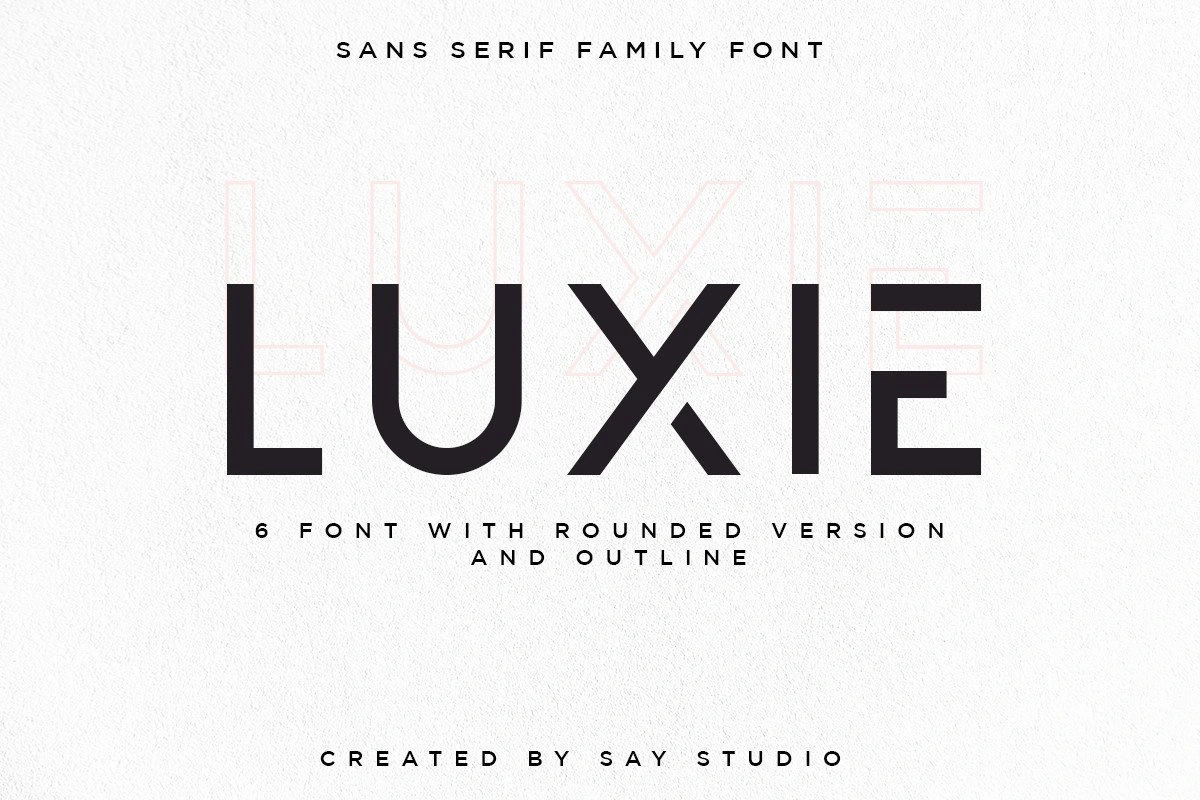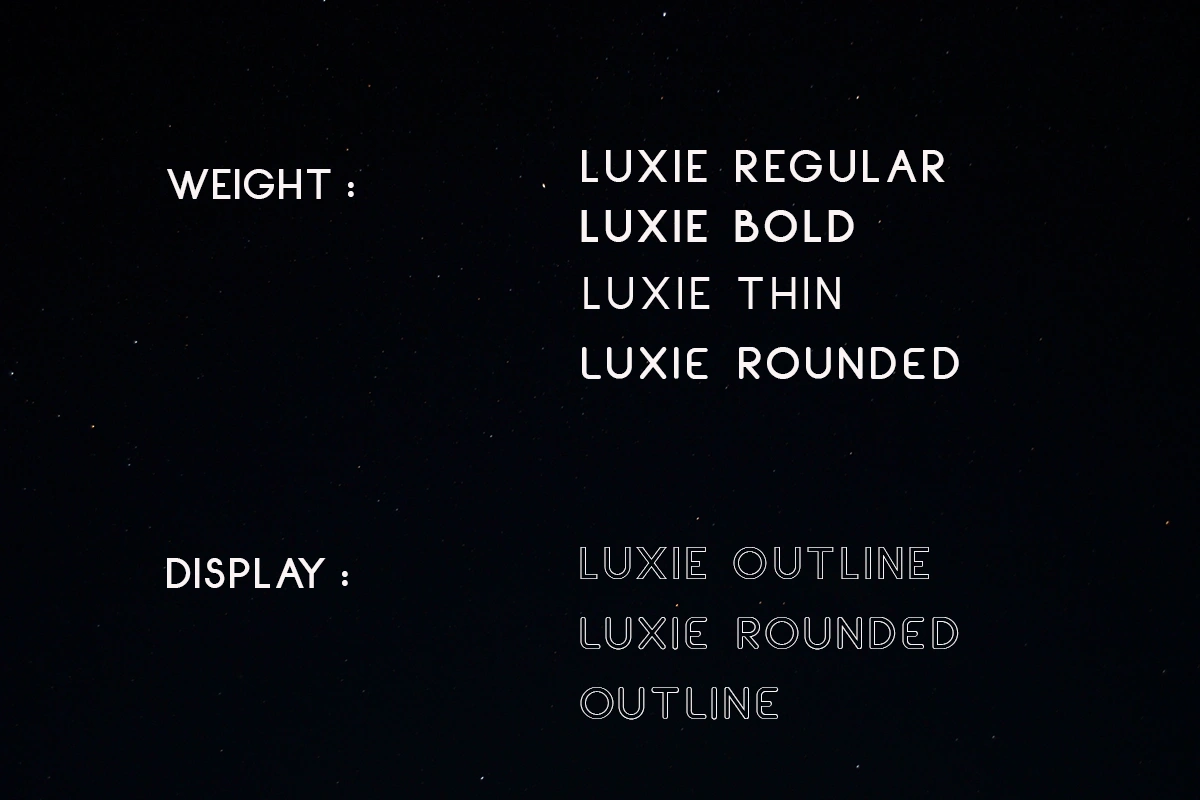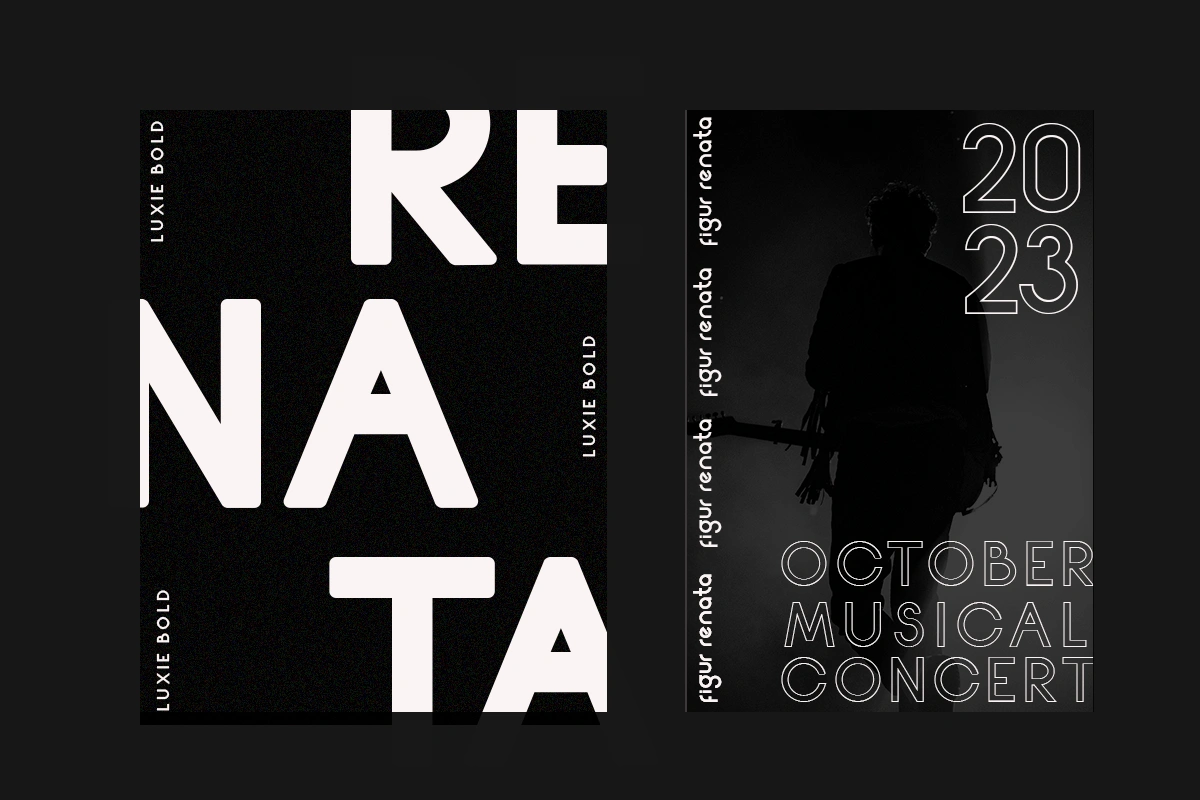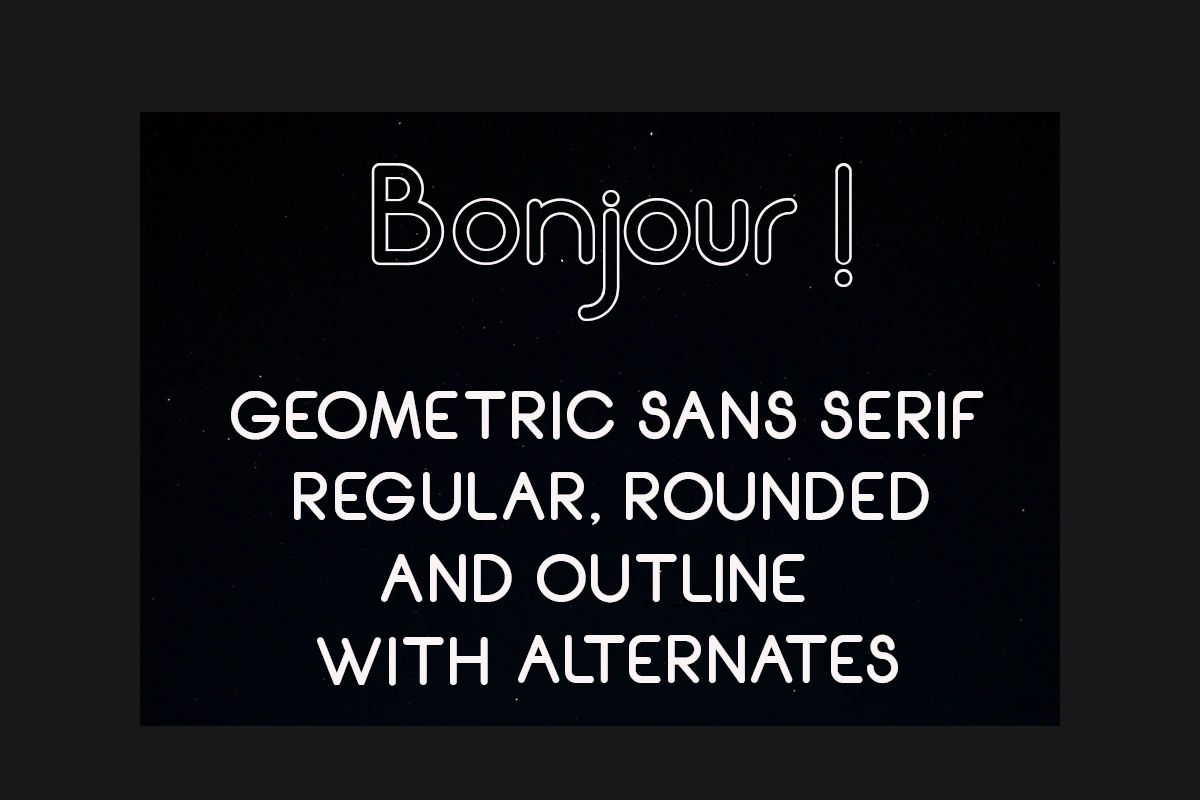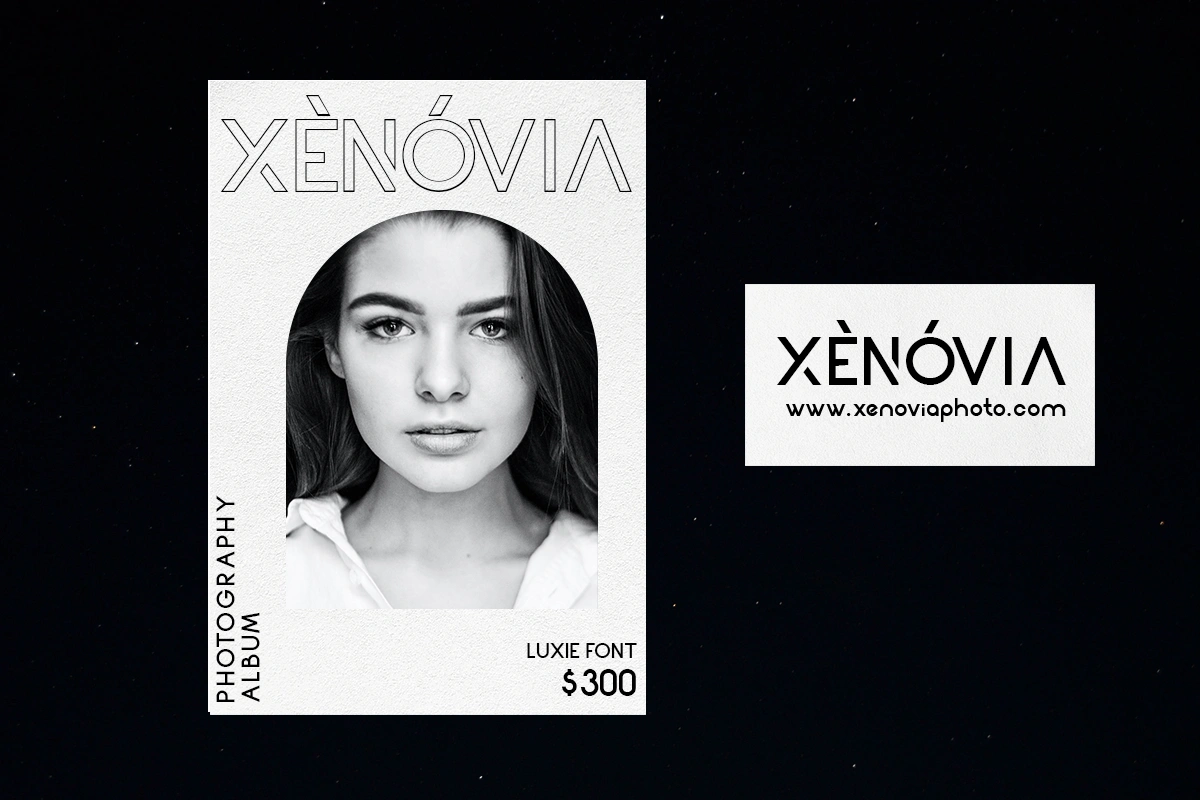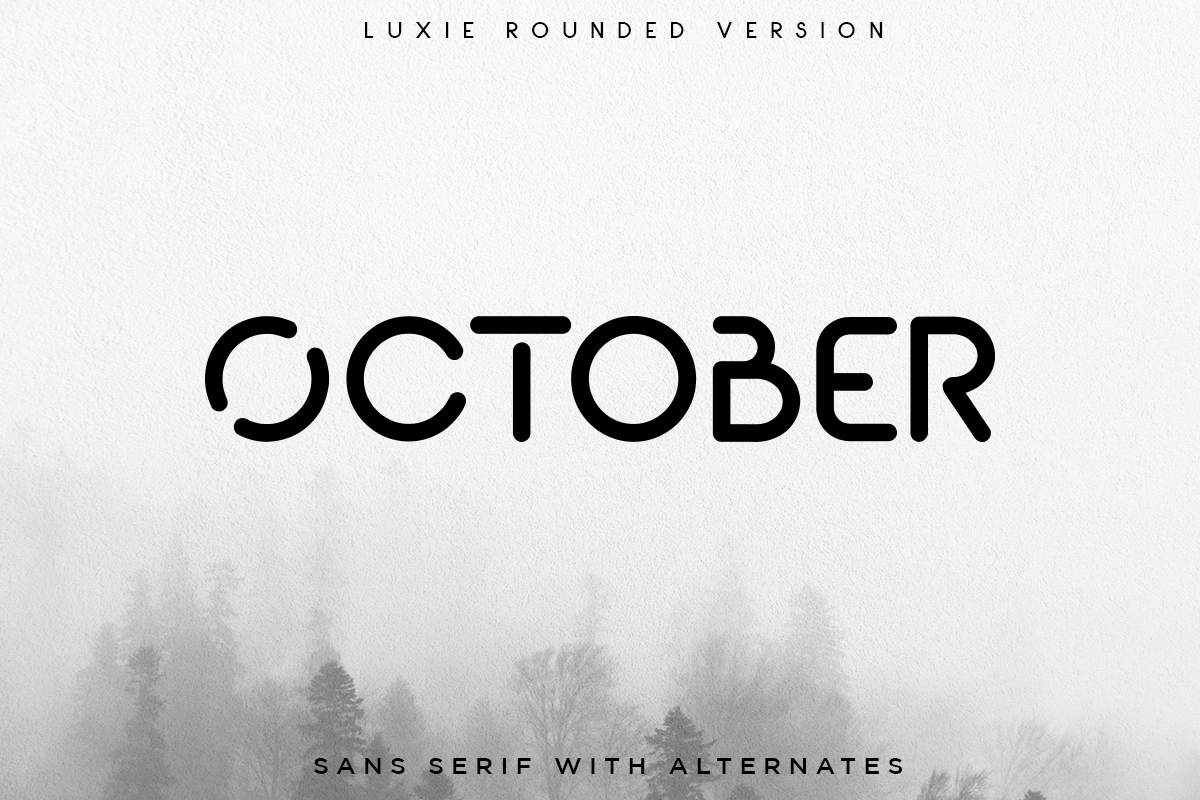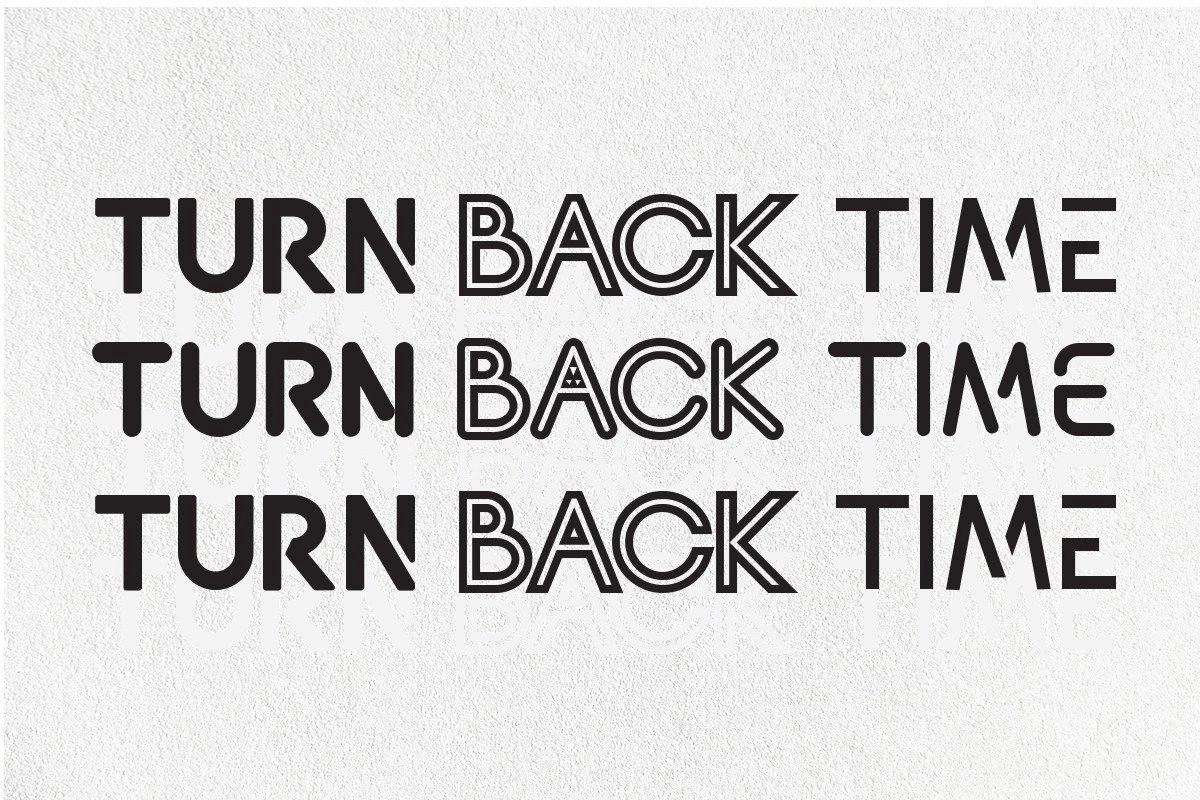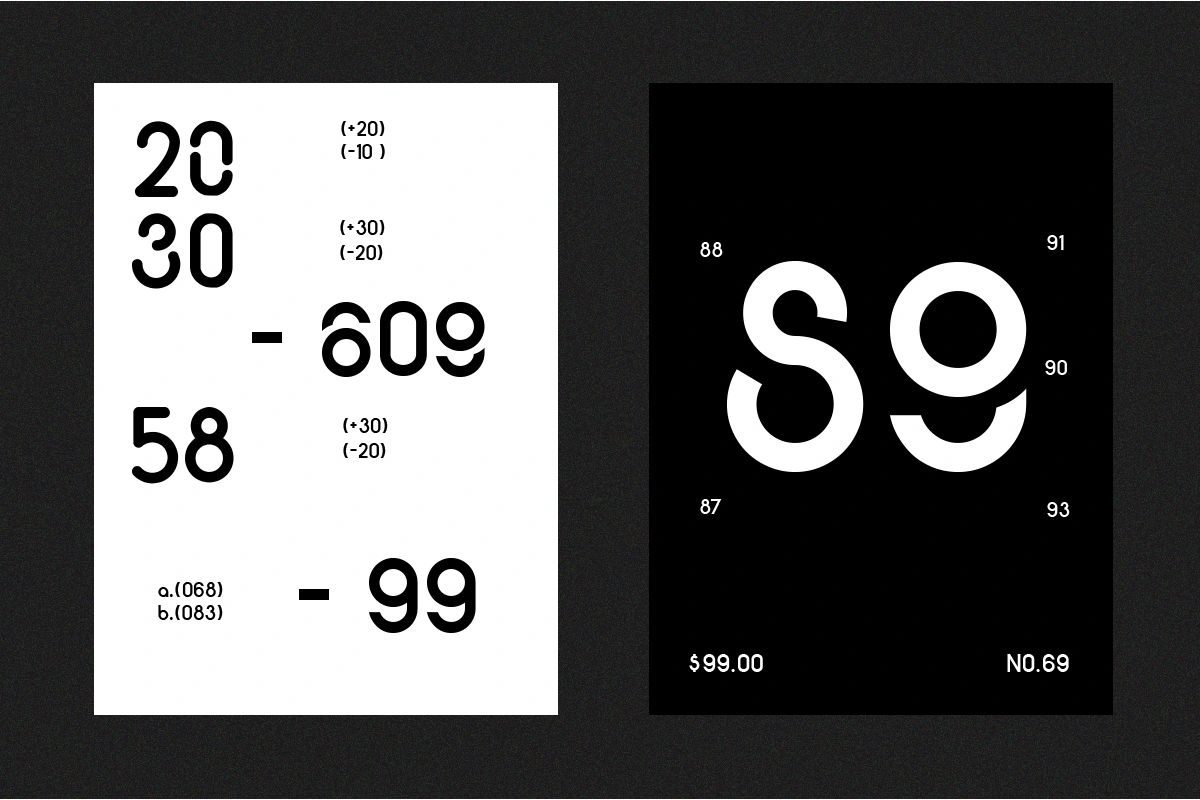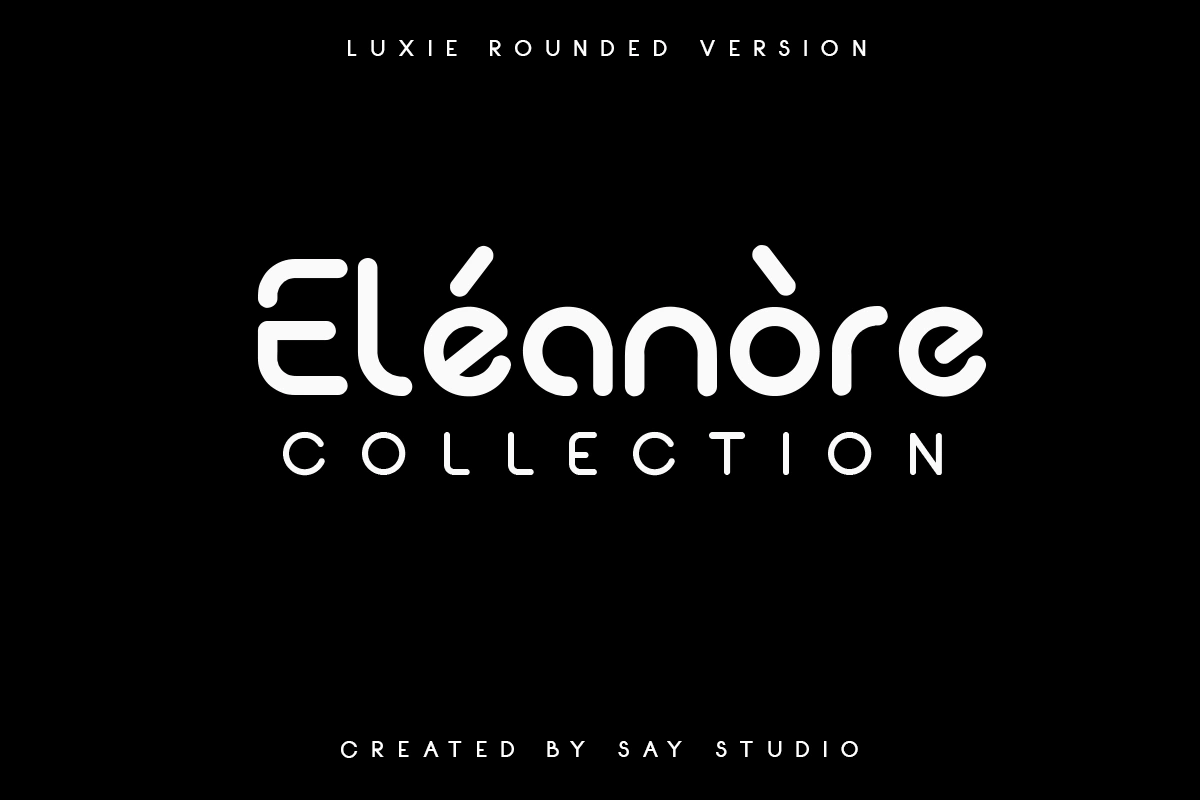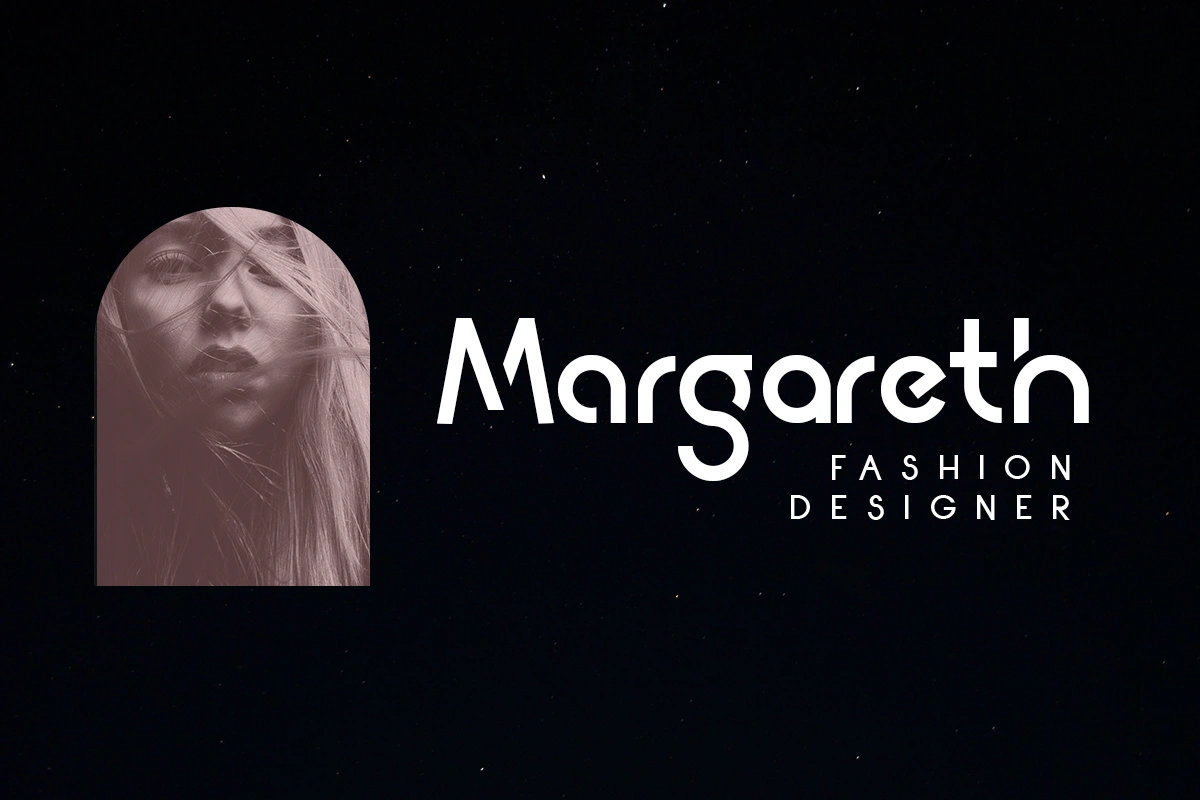
Luxie – Sans Serif Font
Luxie – Geometric Font for Logos
Luxie is a new Geometric font from perfect circles object for logos. The font is suitable for creating wordmarks, titles, taglines. Use alternates to emphasize separate letters in your text. The typeface is versatile and can be successfully used in magazines, posters, branding, websites etc.*
Features:
- 4 Weights + 2 Outline
- Multilungual Support
- Alternates for logos